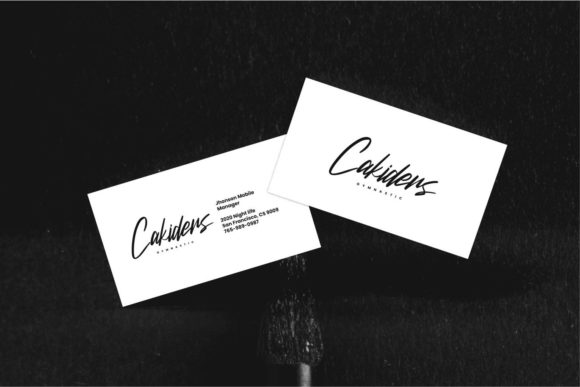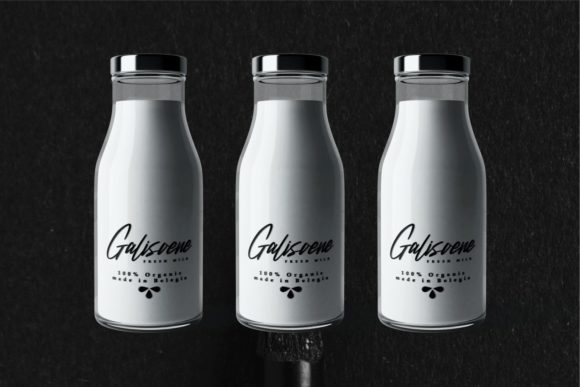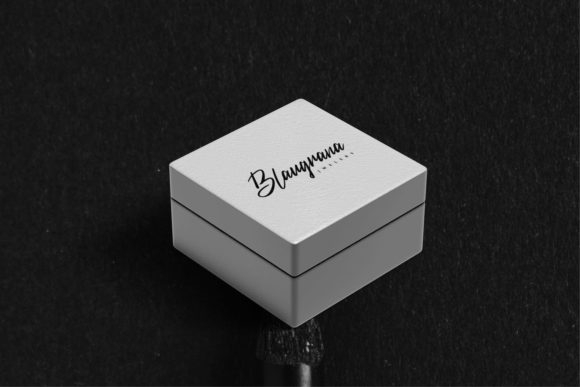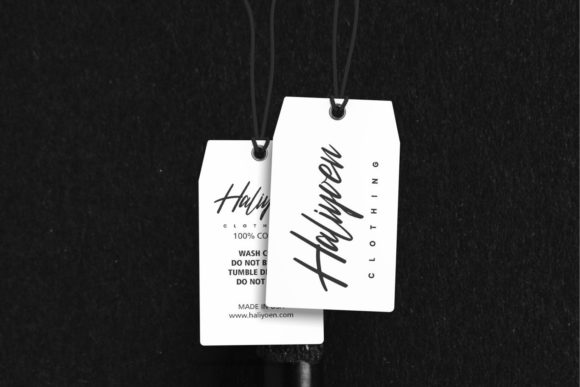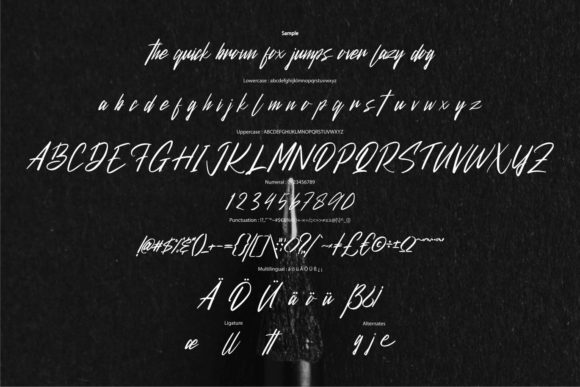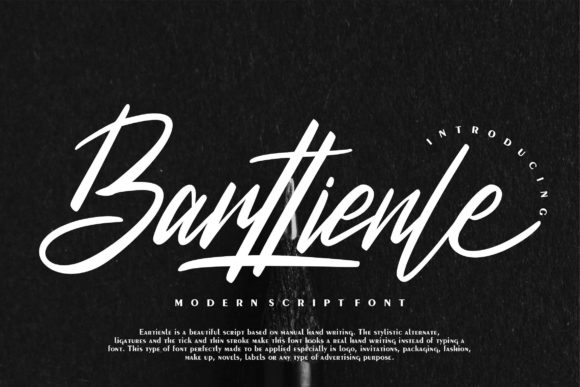
Barttienle Font: Elevate Your Designs with a Modern Handwritten Touch
In the world of digital design, fonts play a crucial role in conveying the tone and aesthetic of a project. For designers and crafters looking to add a personal touch to their creations, the Barttienle font is an excellent choice. This modern handwritten font boasts a natural and beautiful flow, making it perfect for a variety of applications, from wedding invitations to branding materials.
The Charm of Barttienle Font
Barttienle is more than just a font; it’s a way to infuse your designs with a sense of elegance and warmth. Its modern handwritten style gives it a fresh and contemporary feel, while its natural flow ensures that it remains approachable and relatable. Whether you’re working on a wedding invitation, a greeting card, or a business card, Barttienle font is sure to make your design stand out.
One of the key benefits of the Barttienle font is its versatility. It’s a font that can be used in a wide range of projects, including:
- Wedding invitations: Add a touch of romance and elegance to your wedding invitations with Barttienle font.
- Greeting cards: Whether it’s a birthday, anniversary, or holiday card, Barttienle font is sure to make your card more special.
- Branding materials: Use Barttienle font to create a consistent and recognizable brand identity.
- Business cards: Stand out from the crowd with a beautifully designed business card featuring Barttienle font.
- Quotes and posters: Add a touch of inspiration and motivation to your quotes and posters with Barttienle font.
Why Choose Barttienle Font?
So, why should you choose Barttienle font for your next project? Here are just a few reasons:
- Unique and eye-catching: Barttienle font is a unique and eye-catching font that is sure to grab attention.
- Elegant and sophisticated: The modern handwritten style of Barttienle font gives it an elegant and sophisticated feel.
- Easy to read: Despite its elegant style, Barttienle font is easy to read, making it perfect for body text and headlines.
- Highly versatile: As mentioned earlier, Barttienle font can be used in a wide range of projects, making it a great addition to any designer’s toolkit.
Tips for Using Barttienle Font
To get the most out of Barttienle font, here are a few tips:
- Use it sparingly: While Barttienle font is beautiful, it can be overwhelming if used too much. Use it sparingly to create a focal point in your design.
- Pair it with other fonts: Barttienle font pairs well with other fonts, so don’t be afraid to experiment with different combinations.
- Experiment with colors: Barttienle font looks great in a variety of colors, so don’t be afraid to experiment with different color schemes.
In conclusion, the Barttienle font is a beautiful and versatile font that is perfect for designers and crafters looking to add a personal touch to their creations. Its modern handwritten style, natural flow, and high level of readability make it perfect for a wide range of projects, from wedding invitations to branding materials. Whether you’re a seasoned designer or just starting out, Barttienle font is definitely worth checking out.